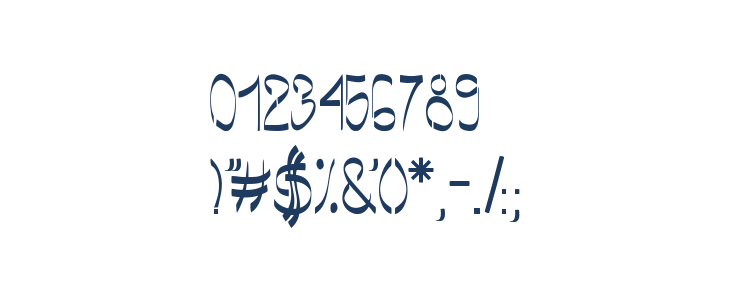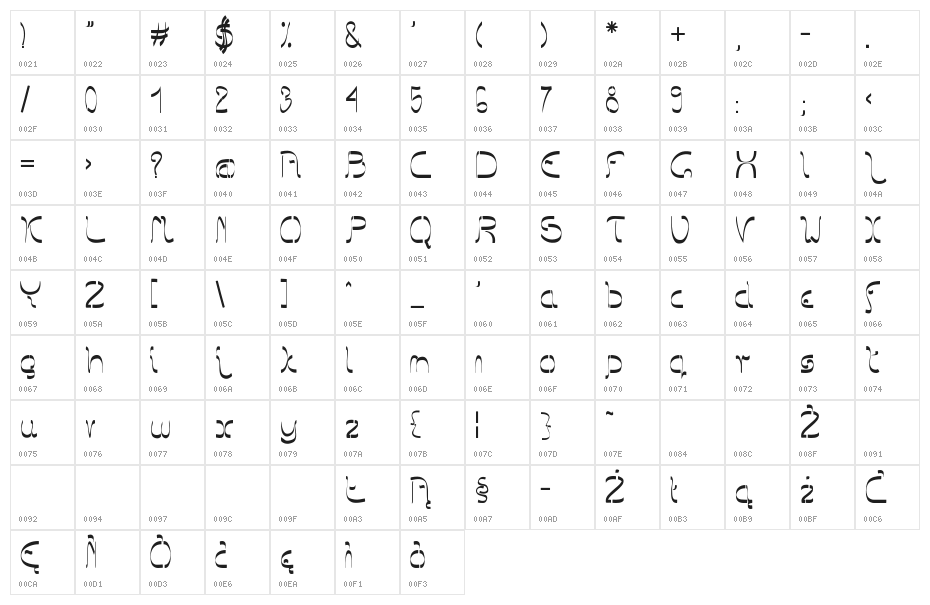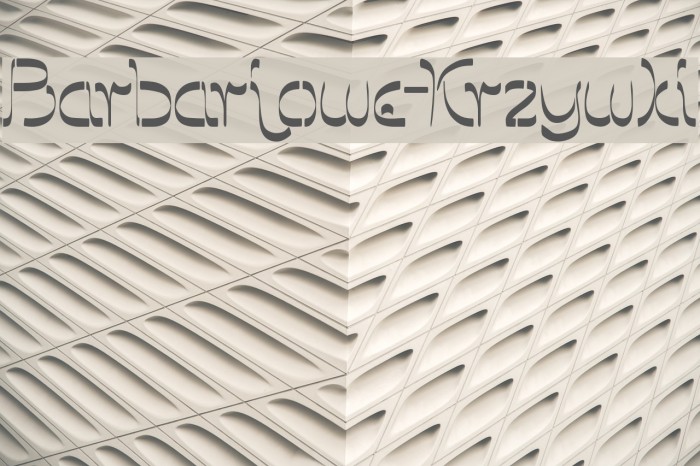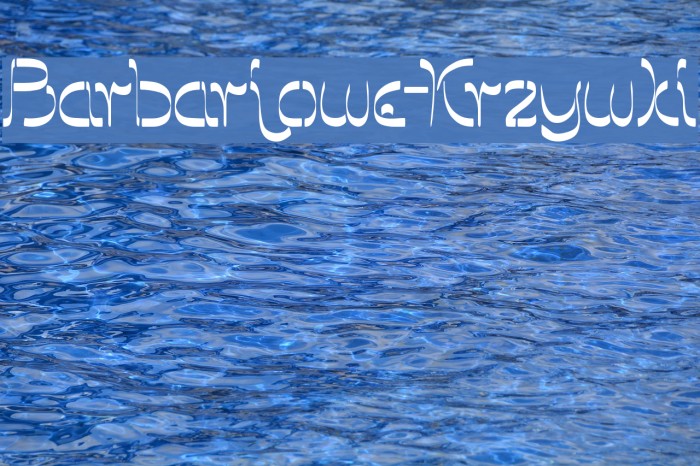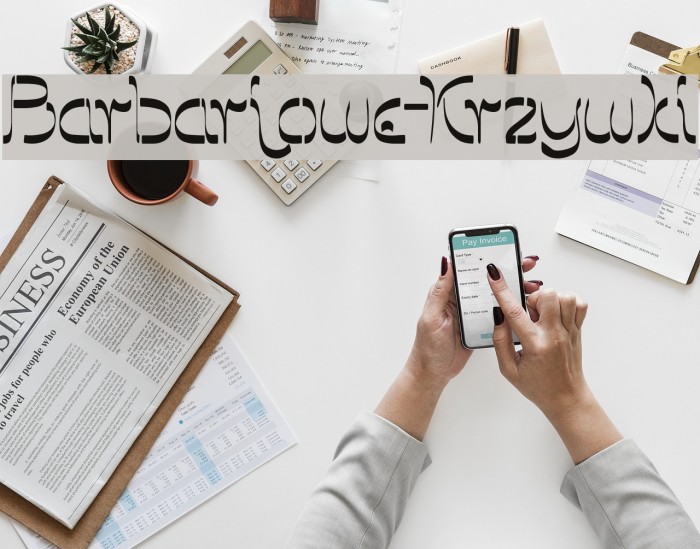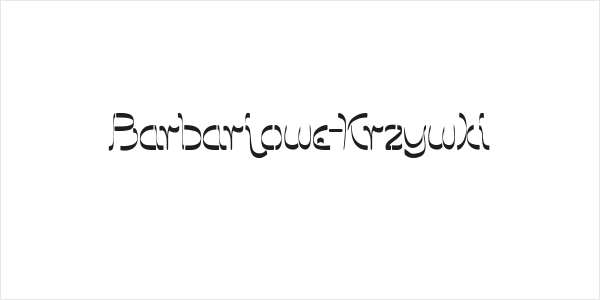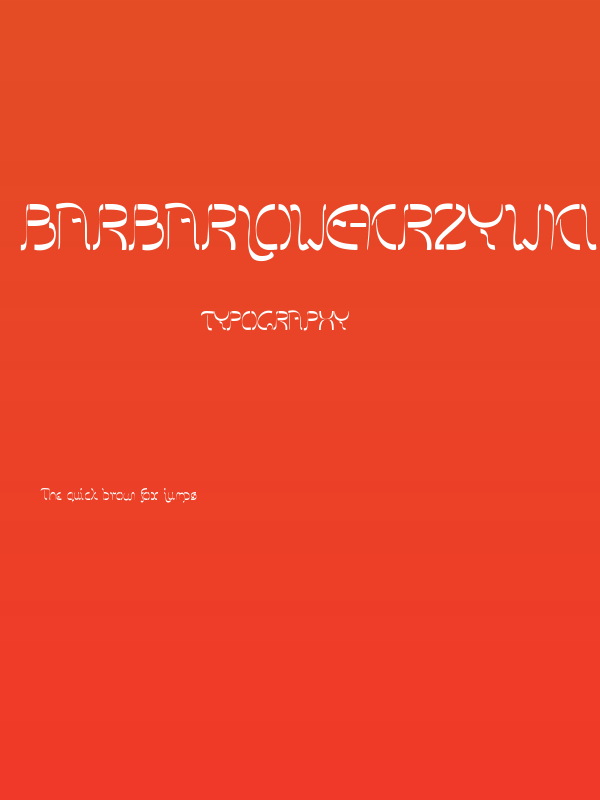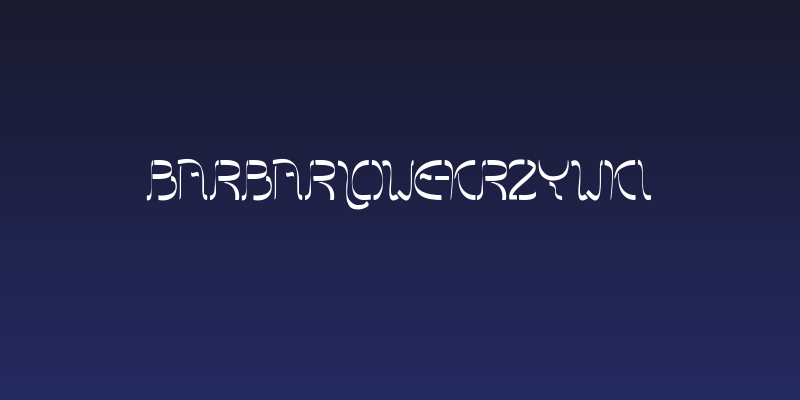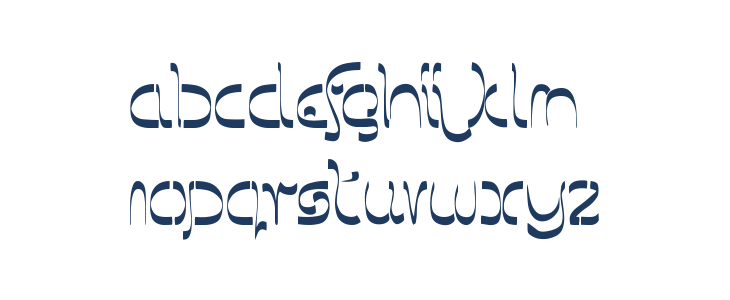
Barbarjowe-Krzywki Font
Barbarjowe-Krzywki Description
This font features a highly stylized and modern design with a unique blend of geometric shapes and abstract forms. The characters are composed of bold, sweeping curves and sharp angles, creating a dynamic and futuristic appearance. The uppercase and lowercase letters maintain a consistent style, with some characters exhibiting a playful asymmetry. The numbers and special characters follow the same design principles, ensuring a cohesive look throughout. This font's distinctiveness makes it suitable for creative and artistic projects, where a bold statement is desired.
| Proposed Projects | Ideal for branding, posters, album covers, and digital art projects. |